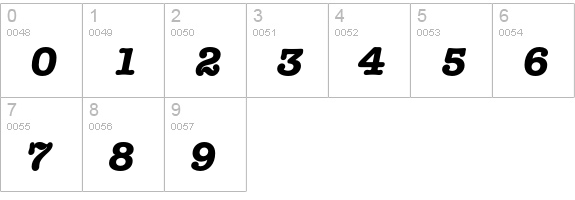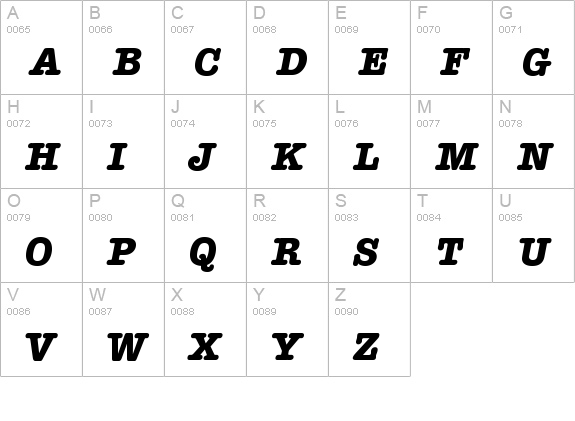
AmTypewriterEF-BoldItalic Font Details
AmTypewriterEF-BoldItalic is a bold and dynamic font that exudes strength and modernity. With its distinct italicized style, this font brings a sense of elegance and sophistication to any design project. Perfect for titles, headers, and branding materials, AmTypewriterEF-BoldItalic commands attention and leaves a lasting impression. What makes this font even more appealing is that it is offered for free download at FontsMarket.com. This means that you can easily access and use AmTypewriterEF-BoldItalic in your creative endeavors without any cost. Whether you are a professional designer looking for a versatile typeface or a hobbyist seeking to enhance your projects, this font is a valuable addition to your toolkit. Experience the bold and italicized charm of AmTypewriterEF-BoldItalic today by downloading it for free at FontsMarket.com. Elevate your designs with this striking and versatile font that is sure to make a statement.